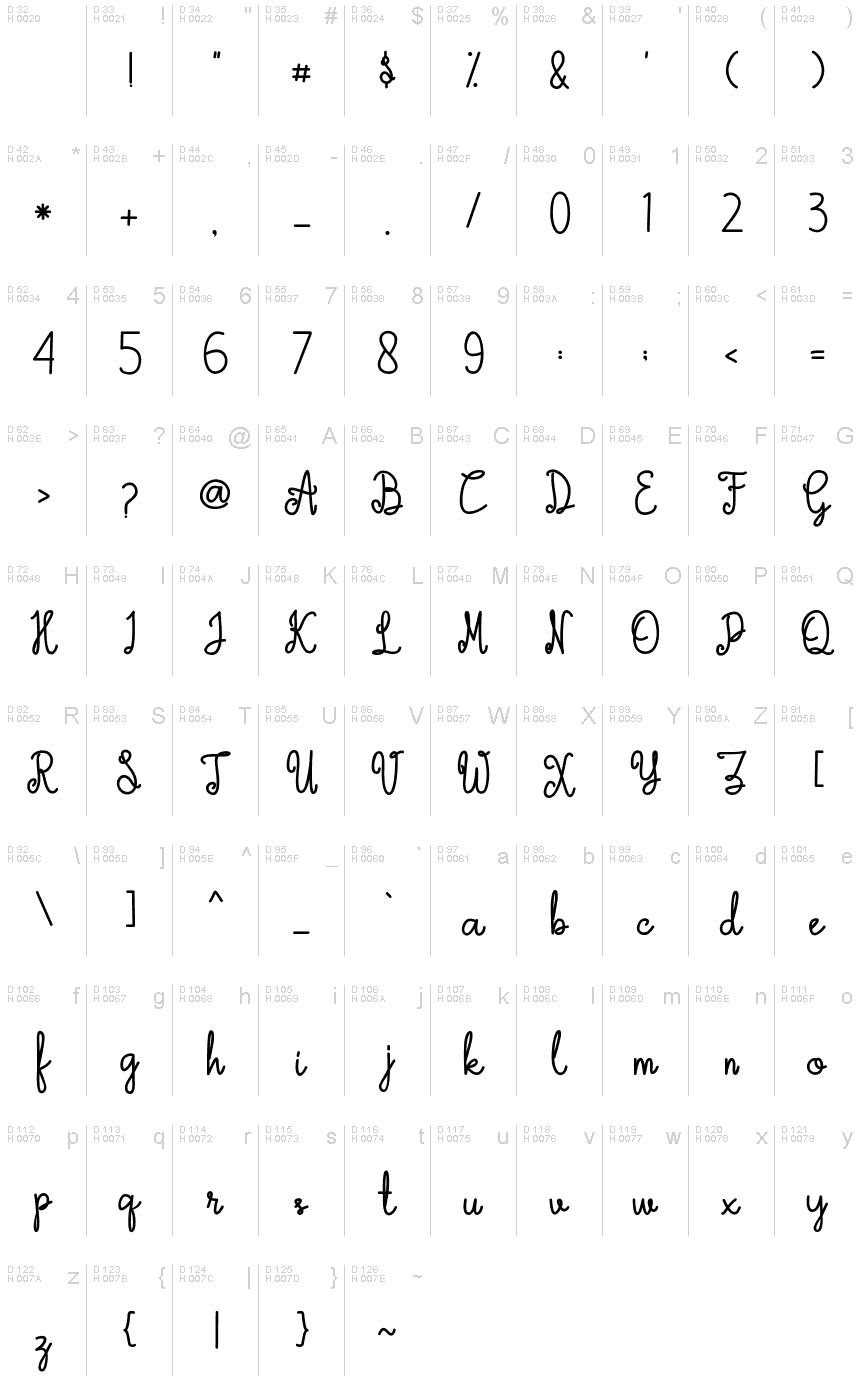
ShyCat
Shy Cat is a sweet and cute handwritten font designed by Ony Studio | Solutype. This typeface works wonderfully for book covers, titles, quotes, and more.